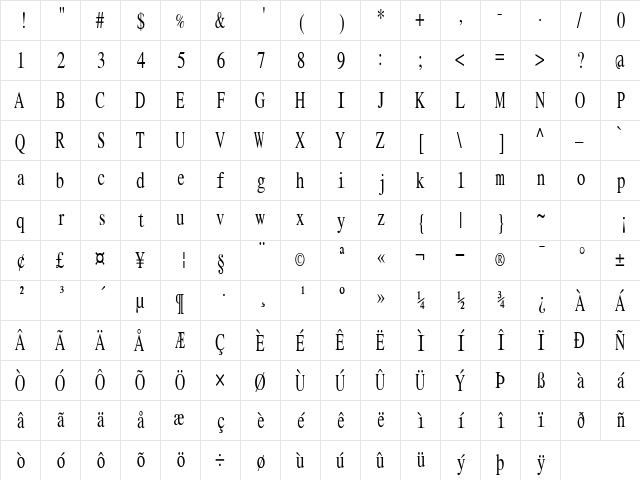
RomanMonoCondensed Regular
Design Context for RomanMonoCondensed Typeface
RomanMonoCondensed brings the precise, column-aligned rhythm of monospaced typography to designs that value technical clarity and systematic order.
Well-suited to data-driven dashboards, coding tutorials, and any design that wants to reference the world of programming.
Pro Tip: Use RomanMonoCondensed with slightly increased line-height for extended reading — fixed-width spacing can feel dense in longer passages without extra breathing room.